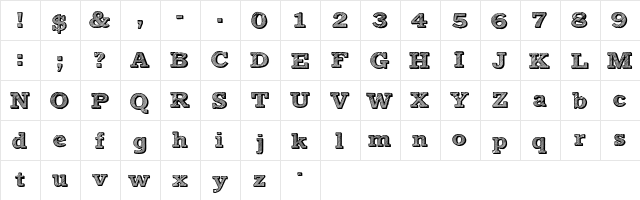
Archive Kludsky Regular
| Foundry | Archive Type |
| Designer | Archive Type |
Design Context for Archive Kludsky Typeface
Archive Kludsky takes a measured approach to typography — its balanced proportions and neutral character make it a reliable workhorse for both digital and print work.